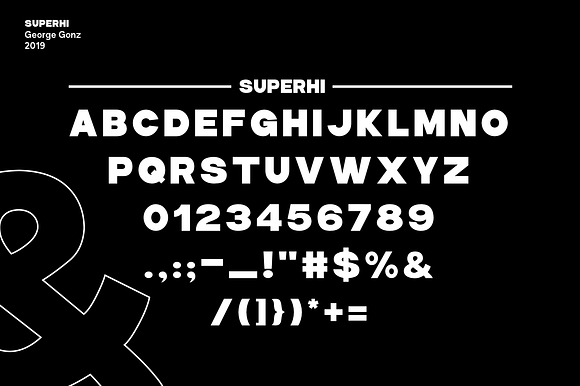
Superhi Typeface
Superhi Typeface by GeorgeGonz is a font selected for branding, posters, packaging, typography.
Why Superhi Typeface is worth a look
Superhi Typeface by GeorgeGonz fits naturally into Branding, posters, packaging, typography.